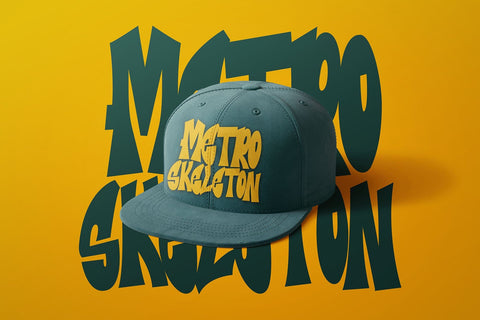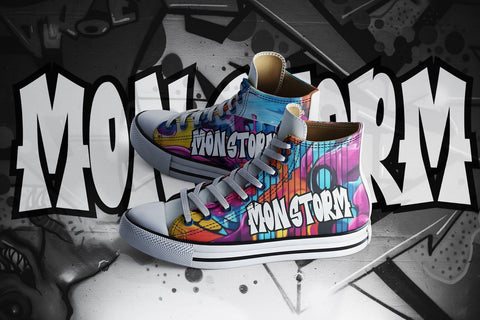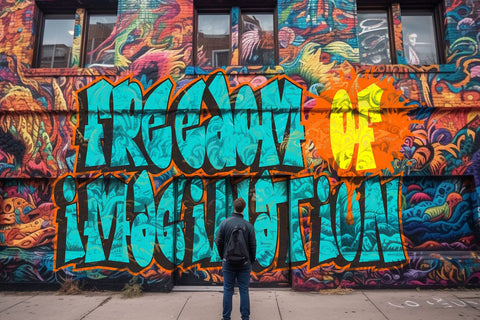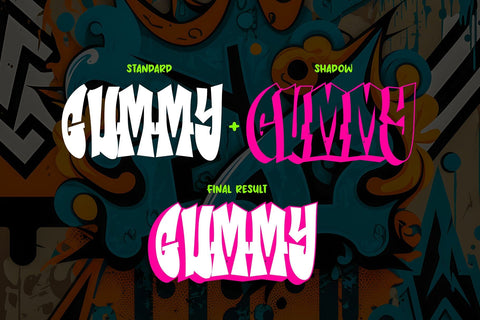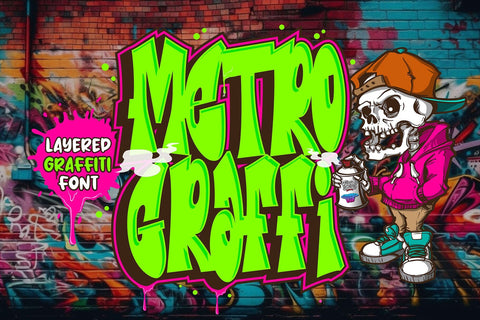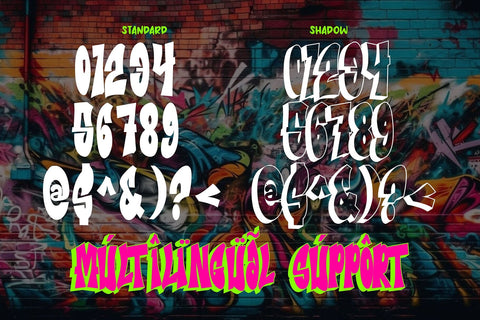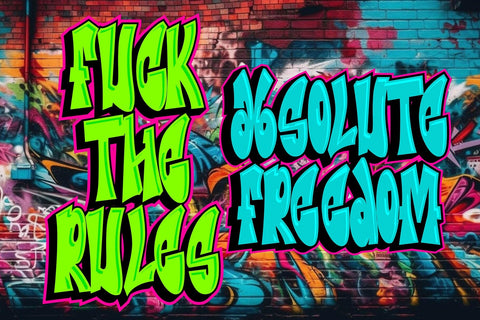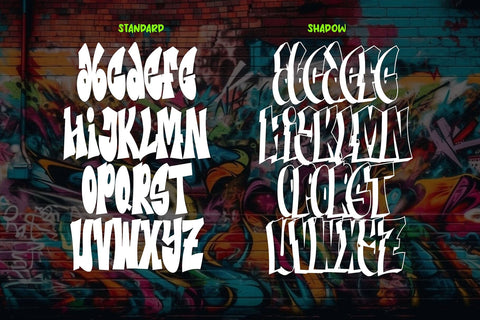
Metro Graffi - Layered Graffiti Font
"Metro Graffi" is a slightly bold graffiti font that comes in two styles: regular and shadow. By combining these styles, you can achieve a 3D effect that adds depth and dimension to your designs. With its urban and edgy style, "Metro Graffi" captures the essence of street art. Whether you're designing posters, logos, or any other graphics, this font will enhance your creations with a cooler and more distinctive appearance. Elevate your designs and give them an extra edge with the urban flair of "Metro Graffi."
- Graffiti Characters looks